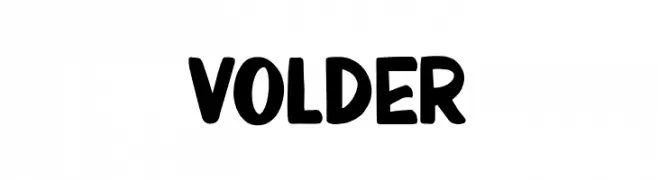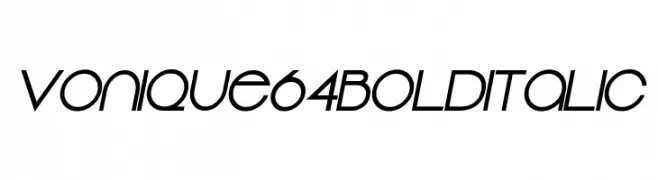
A bold, angular Gothic-inspired font with sharp edges and dramatic serifs.
A bold, rounded font with a playful and informal style.
A playful, bold, and cartoon-like font with rounded, hand-drawn characters.
A sleek, geometric typeface with a modern aesthetic and consistent stroke width.
An ornate, medieval-style font with intricate flourishes and a regal theme.
A bold, italic, and modern font with angular and dynamic characters.
A flowing, elegant script font with high contrast and ornate flourishes.
A graceful and elegant script font with flowing cursive letterforms.
A bold, edgy font with sharp, angular strokes and a dynamic feel.
A tall, narrow, and modern font with art deco influences and tight spacing.